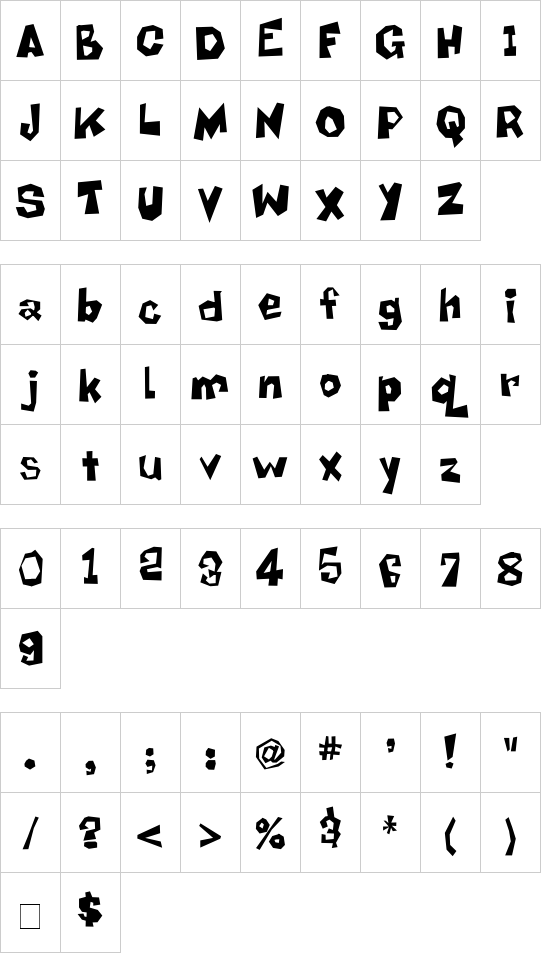
The library also has delightful and beautifully crafted icons for common actions and items. Ernie is a new animated typeface by jim ford, intended as a complimentary serif design to freeman craw’s fun retro hit, ad lib. You can use the ad lib to create interesting designs, covers, shop and store name and logos.
Tahu script font (free) tahu is a modern and clean script font that can be used in personal and commercial projects. Ad lib was created by freeman craw for atf in 1961. Of course, it says clueless.
Ad lib from softmaked and image club matches better than the other versions though. The title lettering for the theatrical release poster is very similar to a font called ad lib. All softmaker webfonts come with at least 500,000 pageviews included.
The font collection section is the place where you can browse, filter, custom preview and. The library also has delightful and beautifully. 1252 latin 1 1250 latin 2: